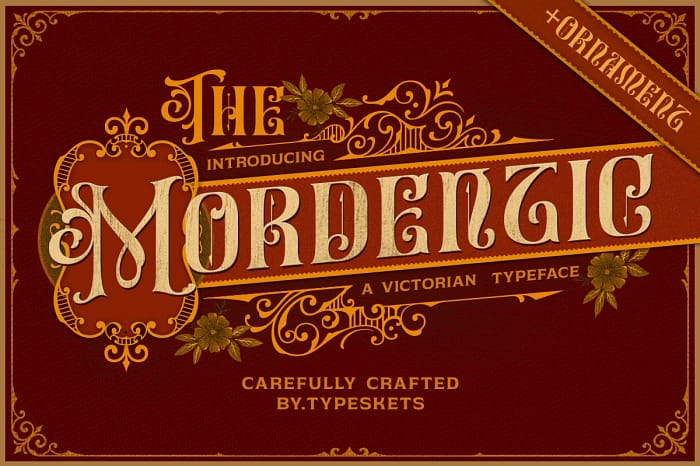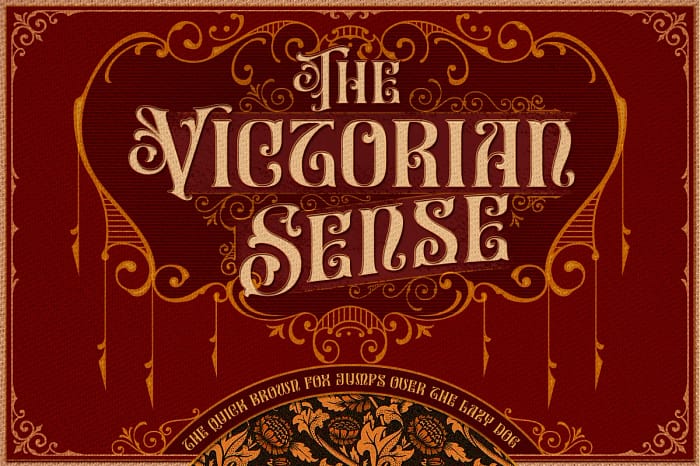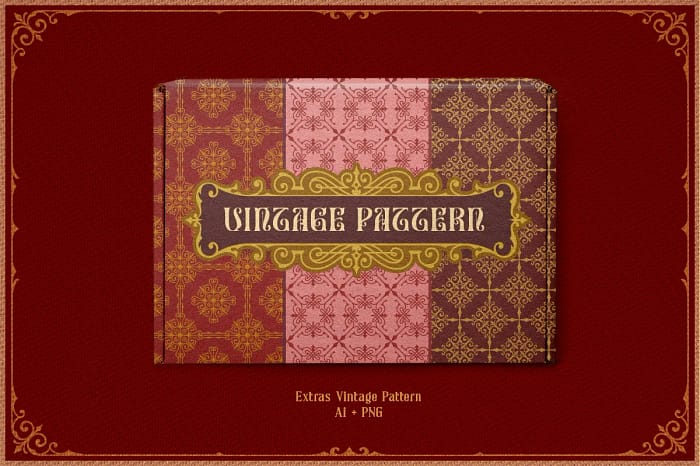
MORDENTIC, a font inspired by the Victorian style, with ornaments as an elegant and classy touch makes this font suitable for you to use for vintage themed designs, you can use it on label designs, posters, logotypes, merchandise, packaging designs, crafts, and more. as well as apparel, this font includes a variety of vintage ornaments and frames, as well as patterns that you can use for your designs